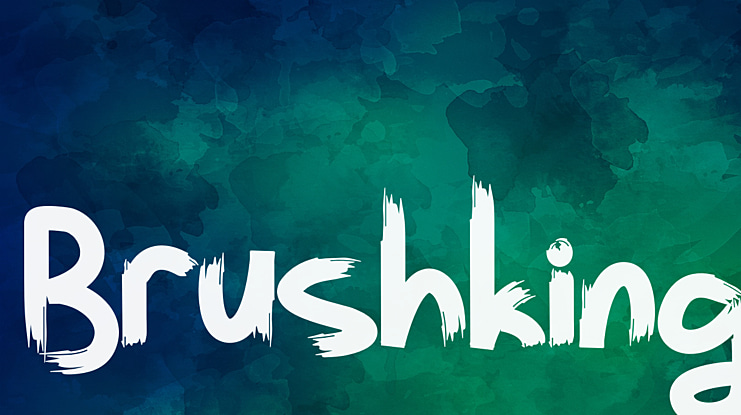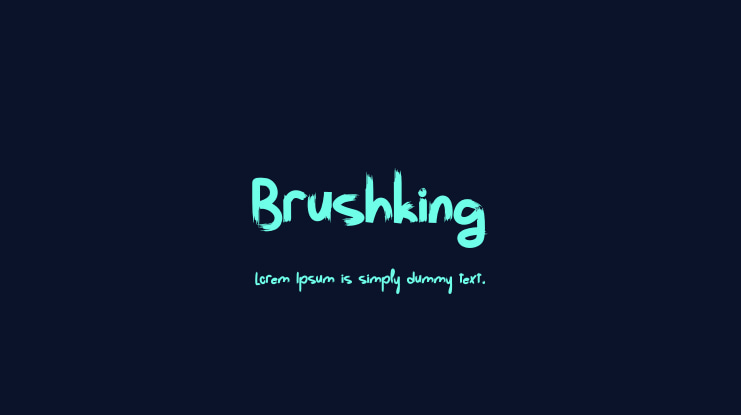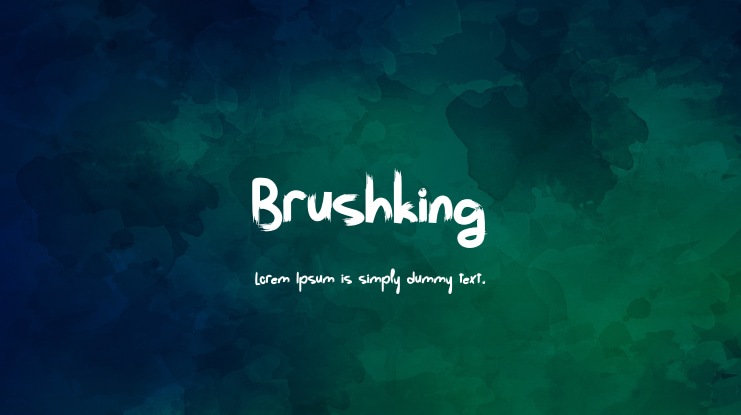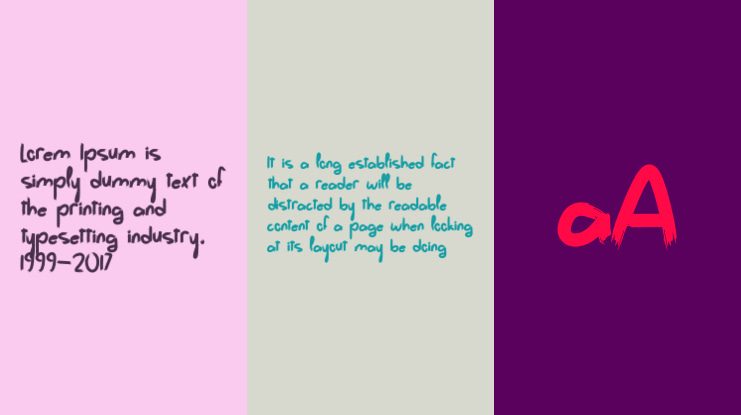
Brushking Font
Brush King is a cool, brushed and natural display font. It can be added to a variety of casual designs such as t-shirts, sportswear, logos, advertisements, clothing, and more.